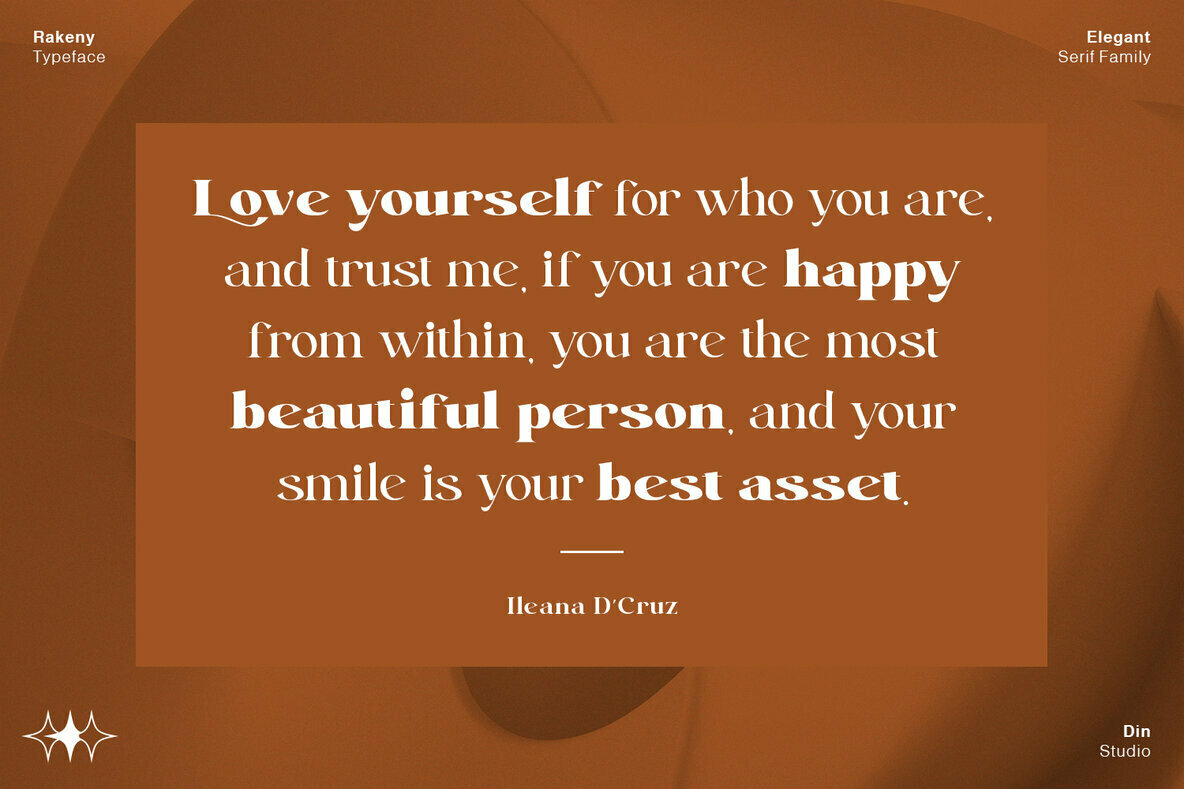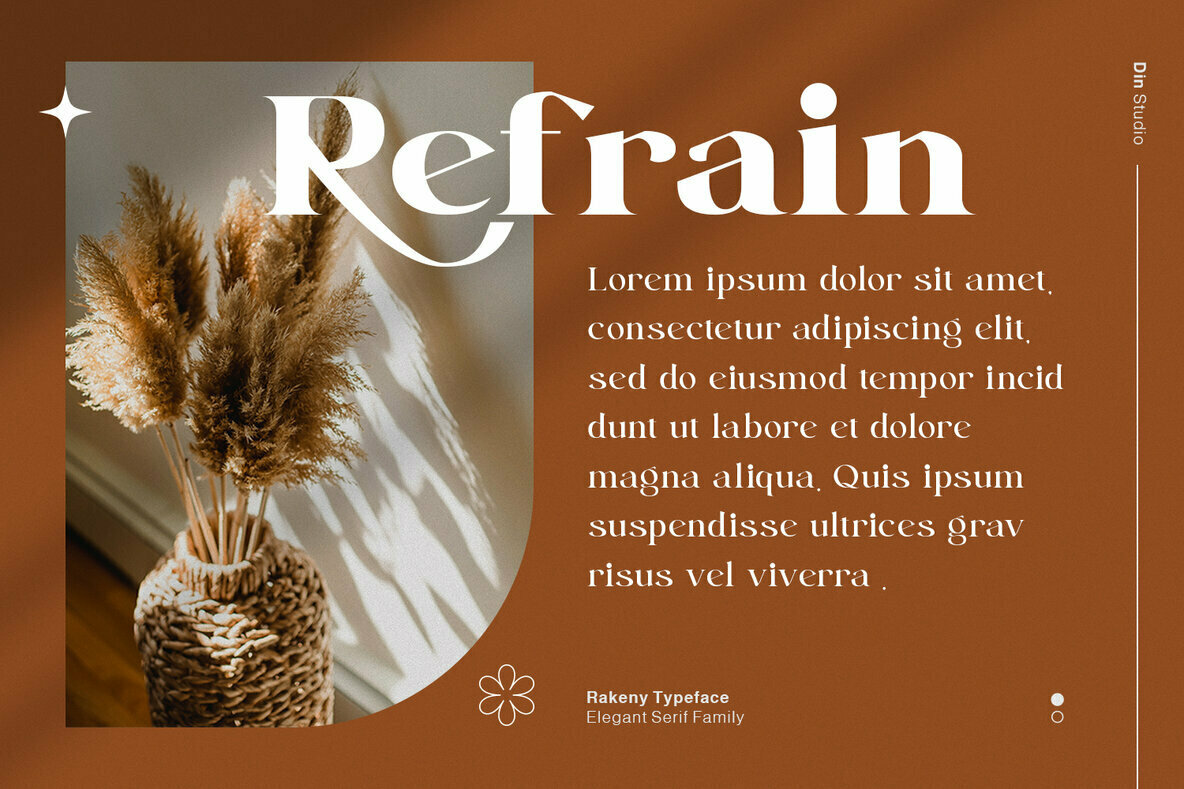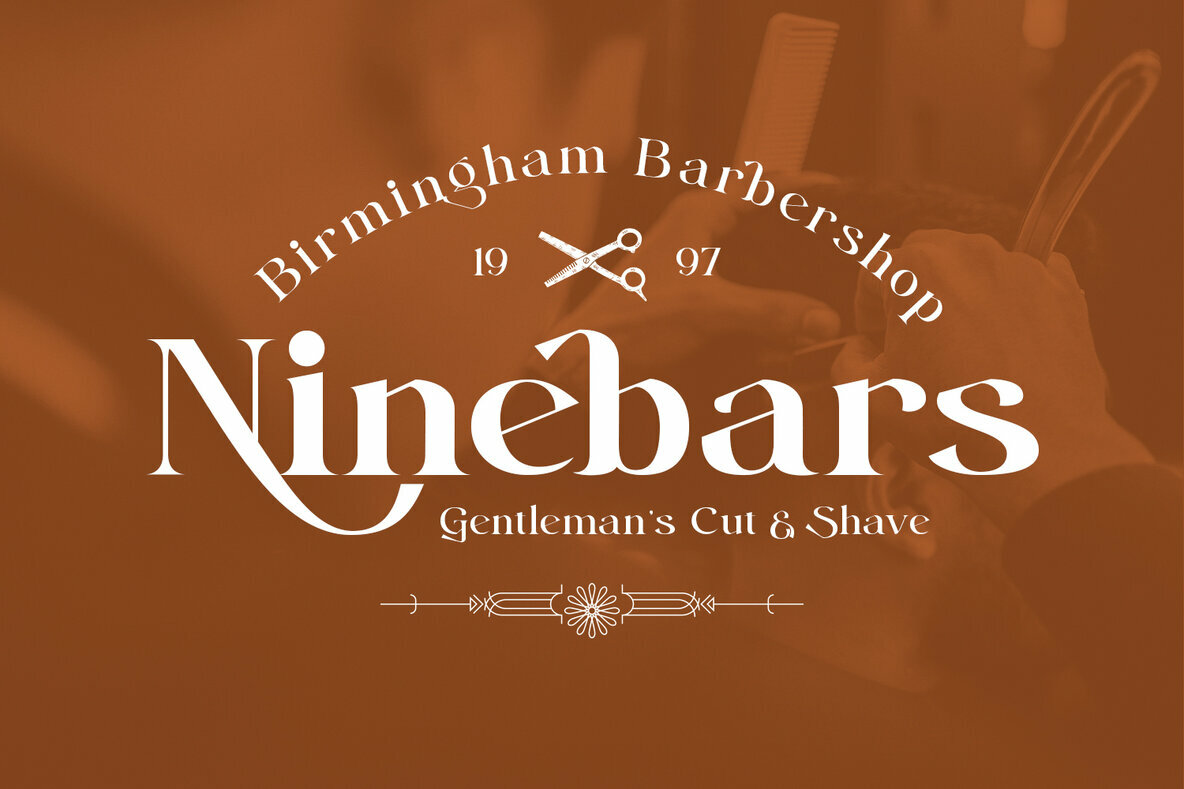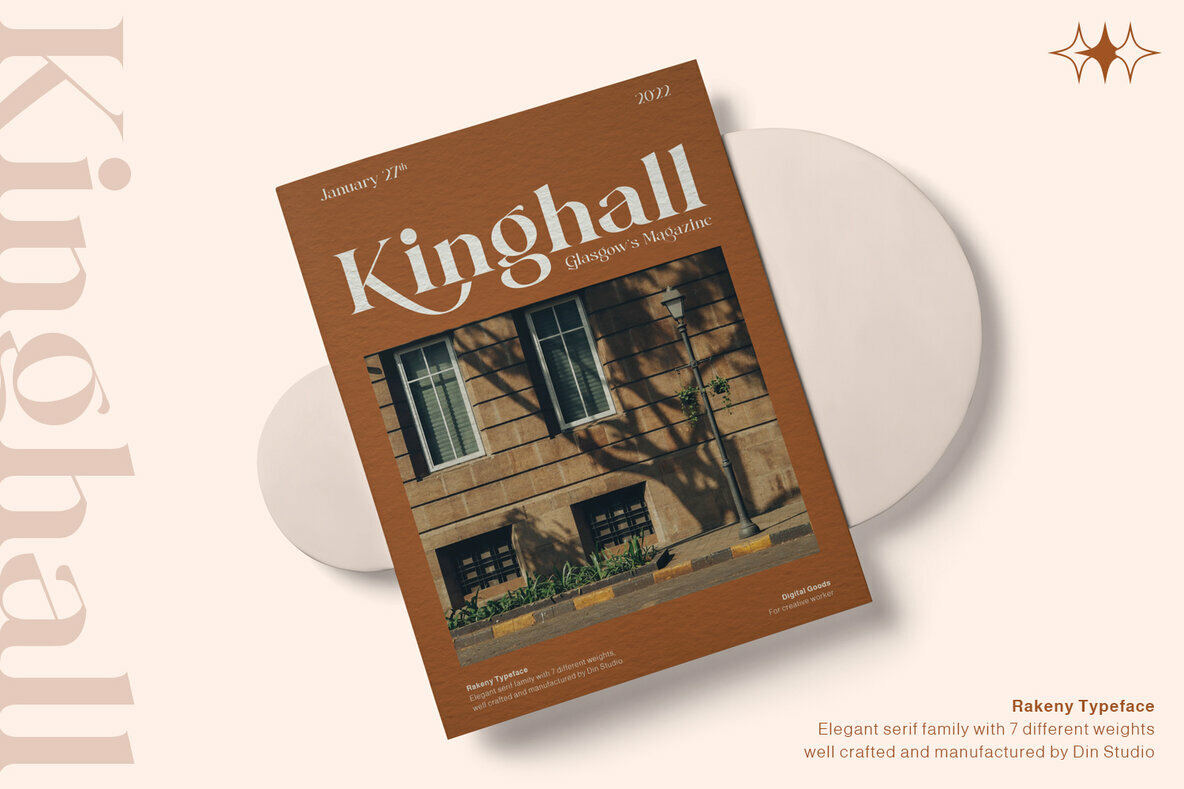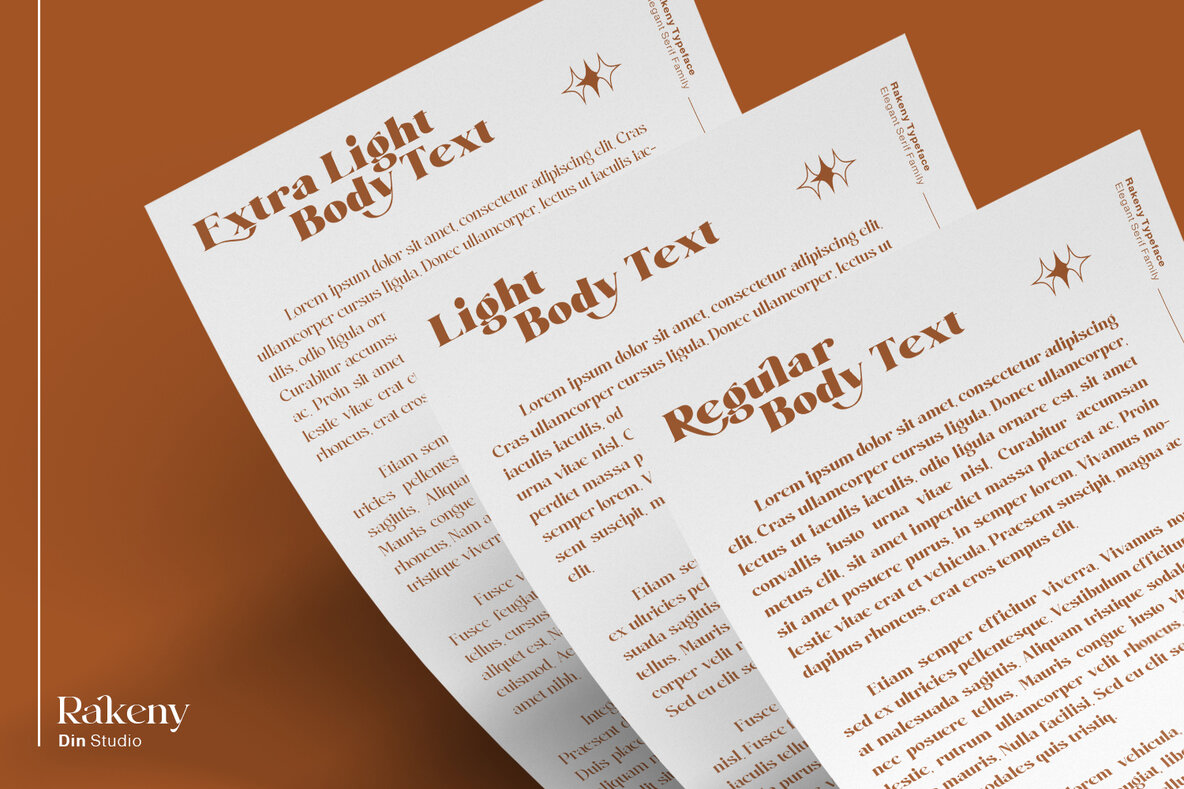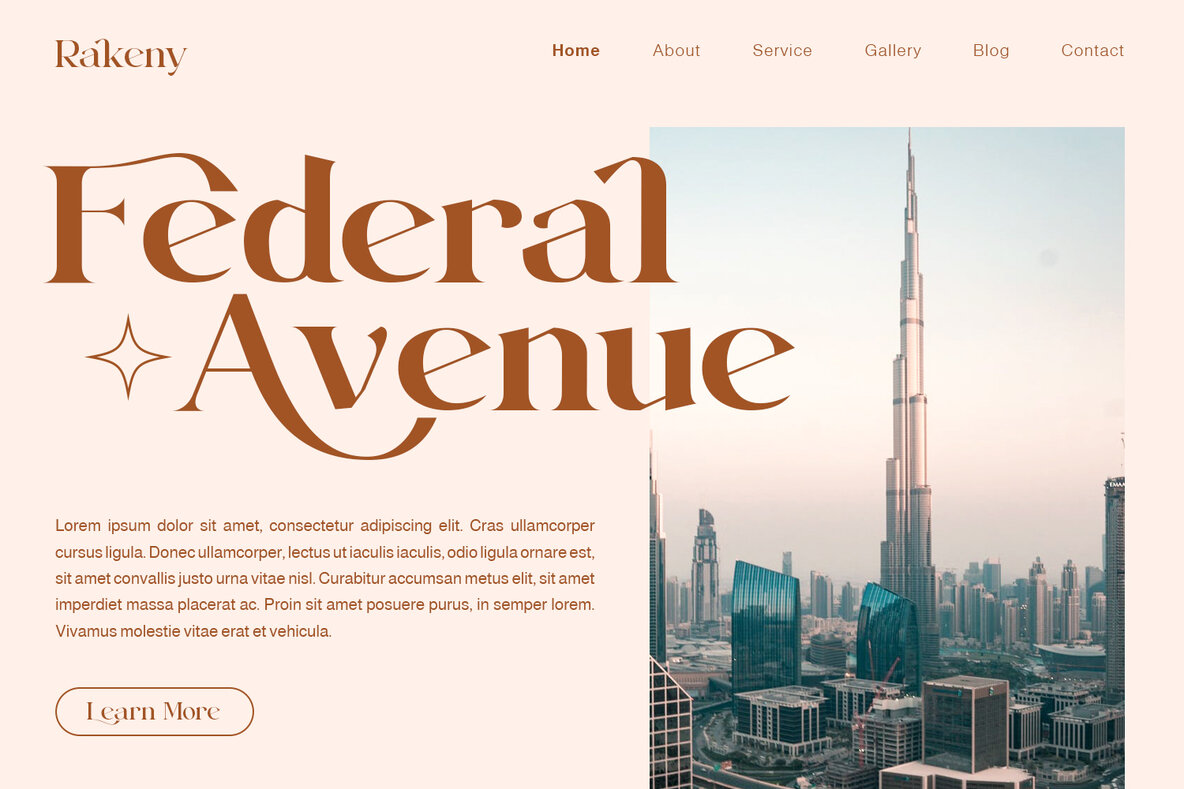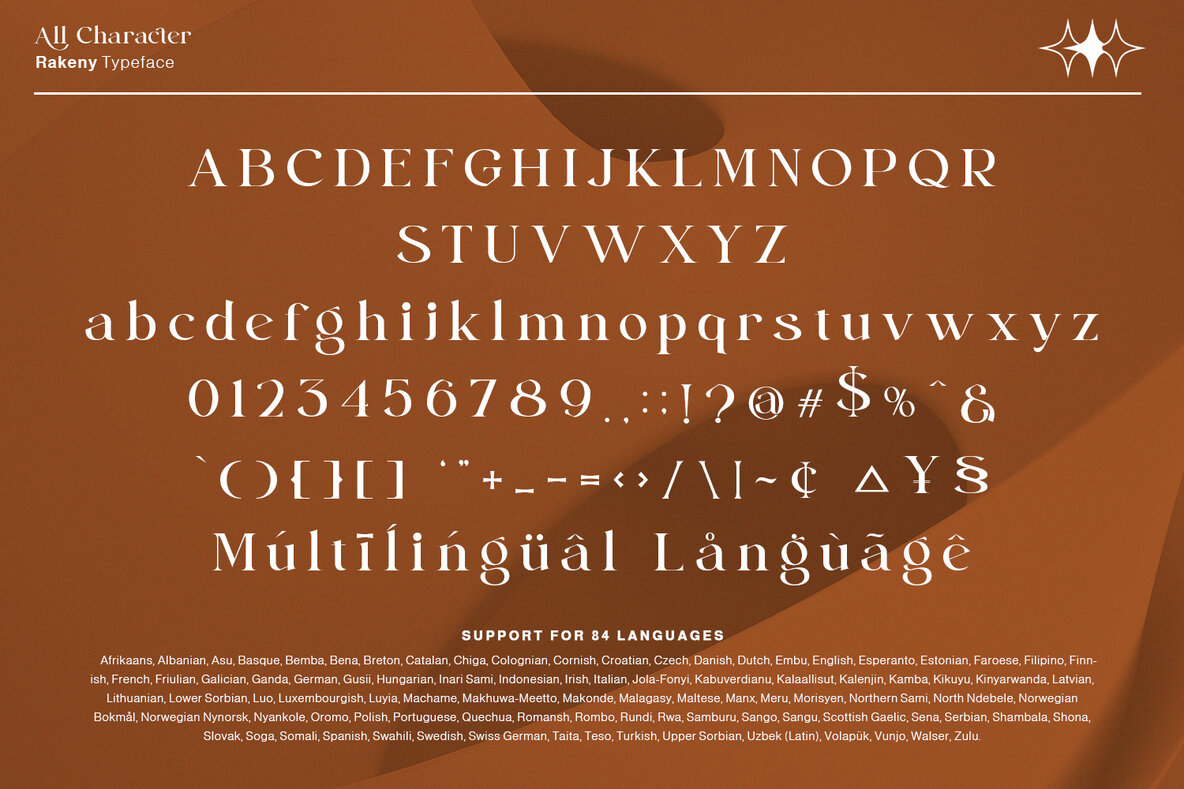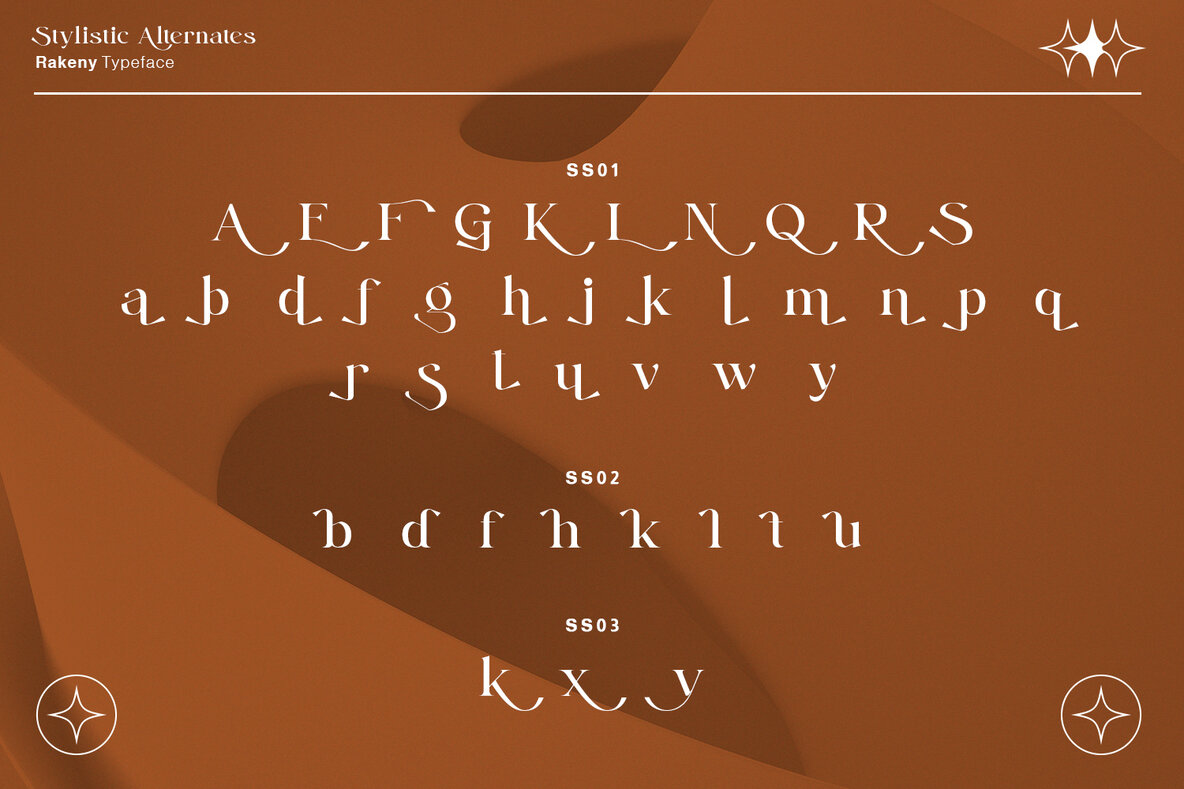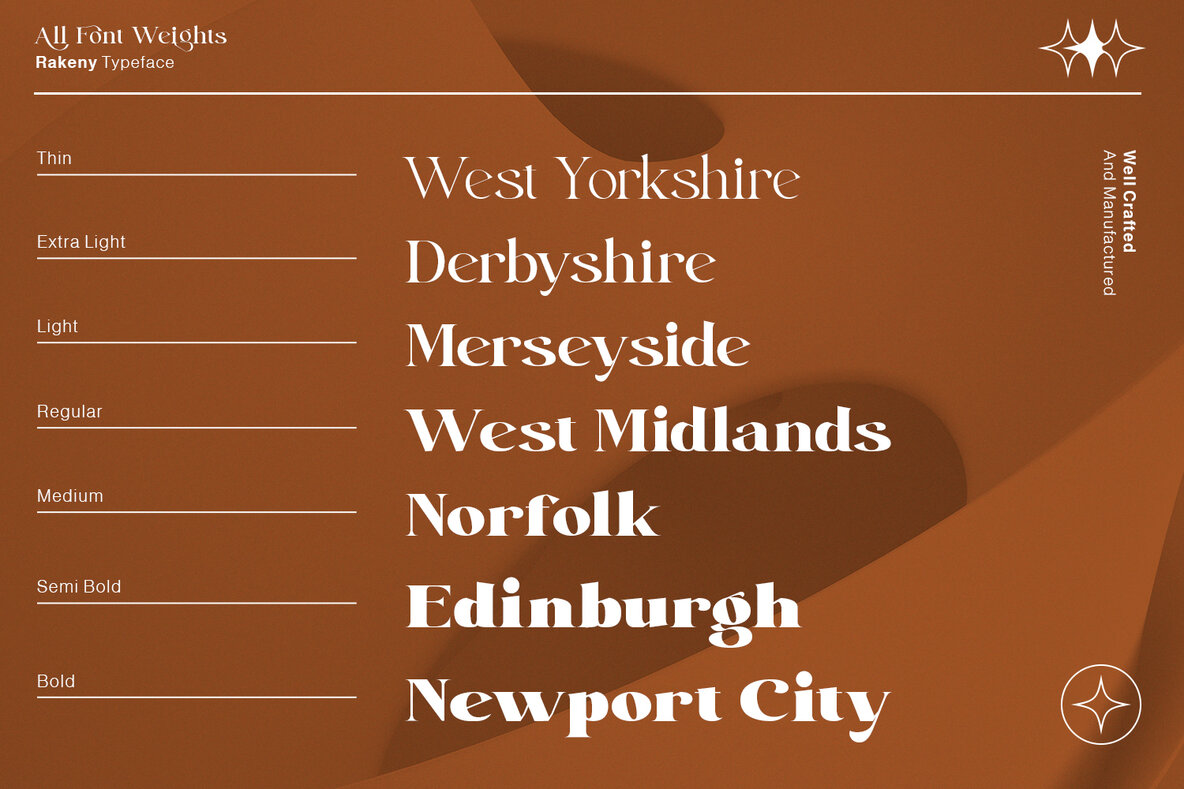
Rakeny Font
Rakeny is a thoughtfully crafted typeface that brings sophistication to your design projects. This versatile family offers numerous options to enhance your designs with stylish flair. Combining a modern serif style with copperplate elements, Rakeny presents a contemporary character marked by a dancing baseline and a touch of elegance. Ideal for an array of applications, Rakeny seamlessly adapts to headings, logos, and signature designs. Whether crafting social media graphics or designing t-shirts and signage, this typeface offers classic, yet modern versatility. Features:Rakeny: Modern Serif Fonts for Elegant Design